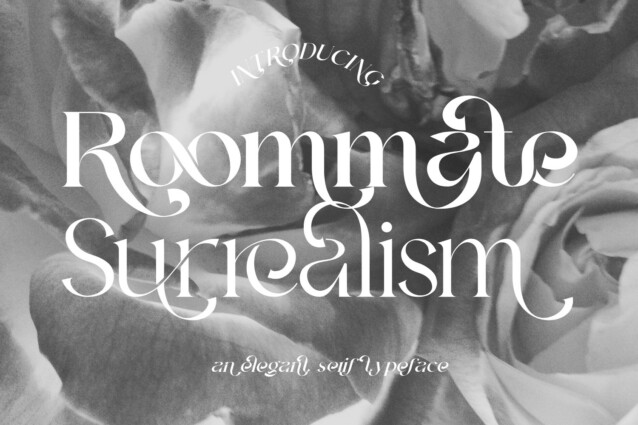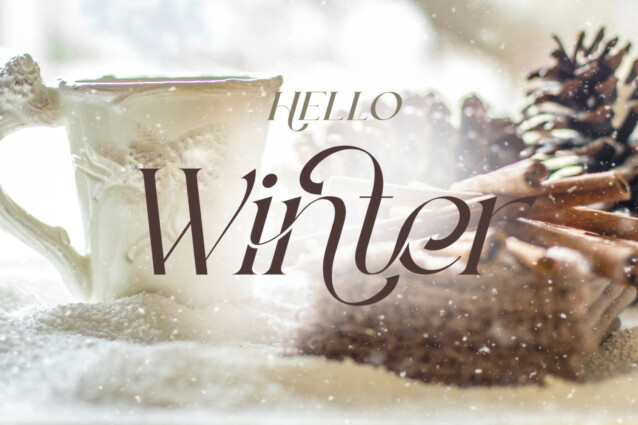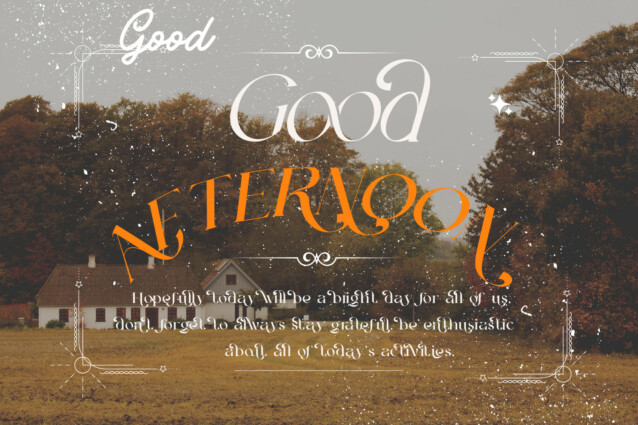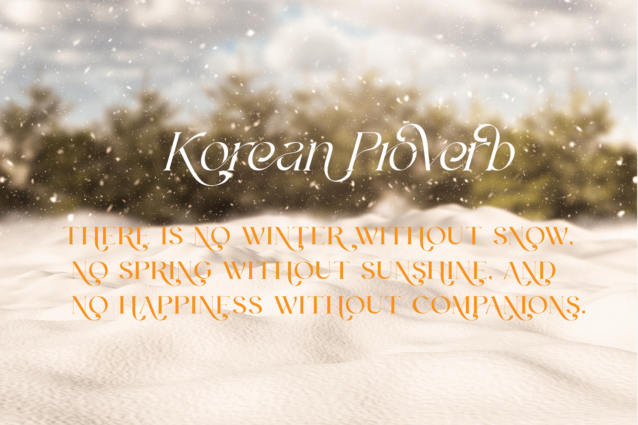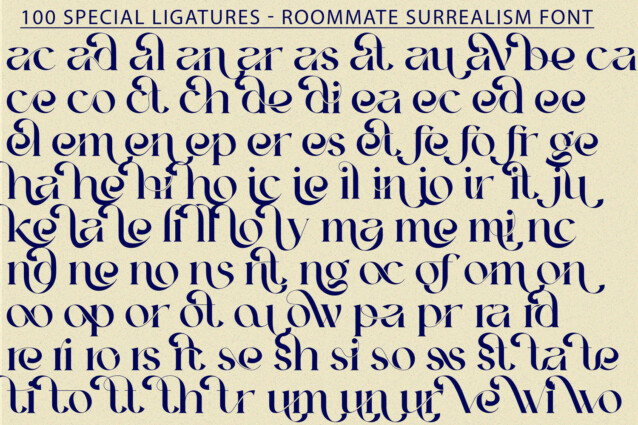
Roommate Surrealism Font
Roommate Surrealism Font is a balanced, smooth, elegant and stylish serif font. He has a beautiful character. This font, meticulously crafted, offers a perfect blend of timeless beauty and contemporary sophistication. It fits perfectly with invitation card designs, company logos, movie titles, movie names, business cards, book titles, brand names and various other designs.
Roommate Surrealism was built with OpenType features and includes 100 ligatures, alternate, numbers, punctuation, and it also supports other languages.
ac ad al an ar as at au av be ca ce ch co ct de di ea ec ed ee el em en ep er es et fe fo fr ge ha he hi ho ie ic il in io ir is it ju ke la le li ll lo ly ma me mi nc nd ne ng no nt ns oc of om on oo op or ot ou ow pa pr ra rd re ri ro rs rt se sh si so ss st ta te th ti to tr tt um un ur ve wi wo